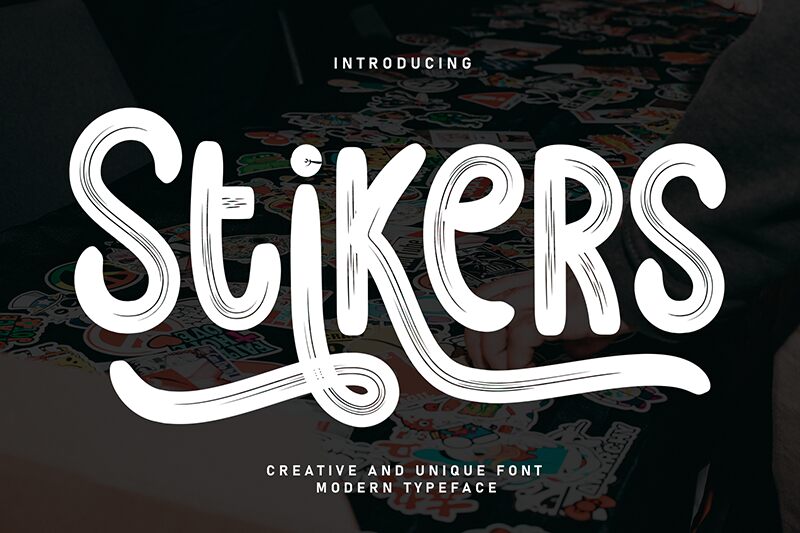
Stikers
Stikers font, by Scratchones, is a condensed handwritten font with decorative and textured fill characters. This creative font echoes vintage and artistic elements while preserving a refined casual vibe. Meant for designs that need a touch of authenticity, Stiker becomes a suitable choice every time you’re after the hand-drawn aesthetic within your work.